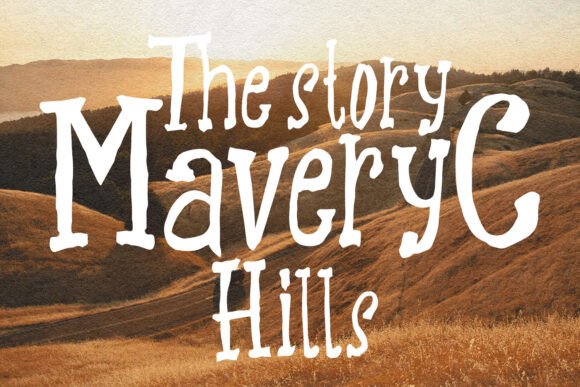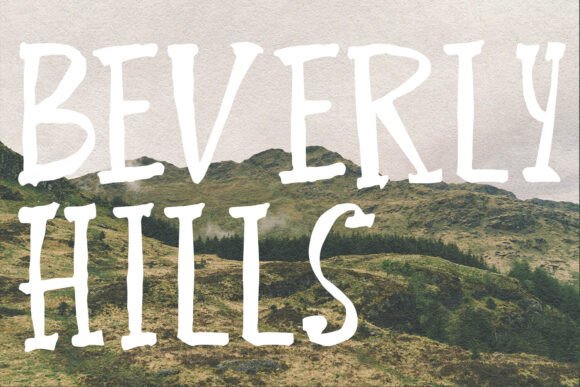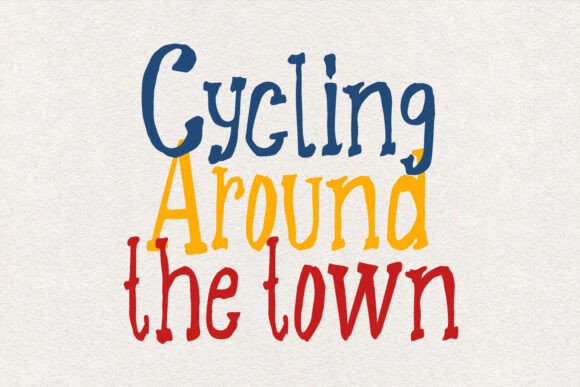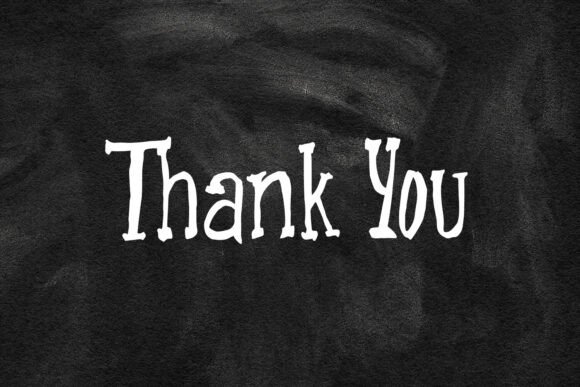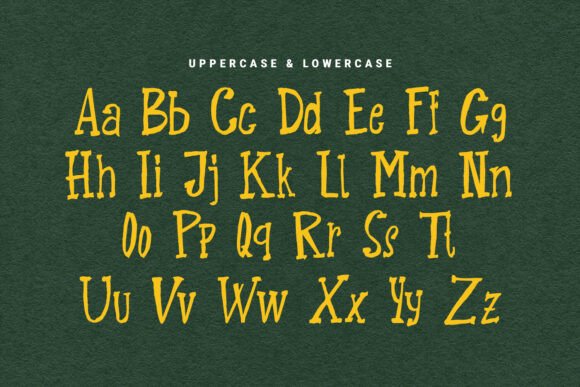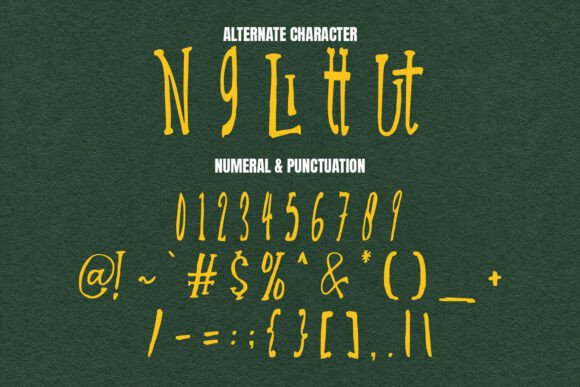
Introducing Helingest Crokleyn Font: A Handmade Brush Typewriter Display Font
Are you tired of using the same old fonts in your designs? Look no further! Helingest Crokleyn Font is a unique, handmade brush typewriter display font that is sure to add a touch of personality to your creative work. With its fun and playful character, alternates, and ligatures, this font is perfect for designers and crafters looking to add some extra flair to their projects.
What Makes Helingest Crokleyn Font Special?
Helingest Crokleyn Font is a one-of-a-kind font that is handcrafted with love and care. Its handmade brush typewriter design gives it a distinctive look that is reminiscent of traditional typewriters, but with a modern twist. The font comes with a range of fun characters, alternates, and ligatures that allow you to add extra creativity to your work.
Key Features of Helingest Crokleyn Font
- Handmade Brush Typewriter Design: Helingest Crokleyn Font features a unique handmade brush typewriter design that gives it a distinctive look.
- Fun Characters: The font comes with a range of fun characters that are perfect for adding a touch of personality to your designs.
- Alternates and Ligatures: Helingest Crokleyn Font includes alternates and ligatures that allow you to add extra creativity to your work.
- Multilingual Support: The font supports multilingual language, making it perfect for designers and crafters who work with clients from around the world.
Helingest Crokleyn Font is perfect for designers and crafters who are looking to add a touch of personality to their work. Whether you’re working on a branding project, a craft project, or a digital design, this font is sure to help you stand out from the crowd.
Use Cases for Helingest Crokleyn Font
Here are just a few examples of how you can use Helingest Crokleyn Font in your designs:
- Branding and Logo Design: Use Helingest Crokleyn Font to create a unique and memorable brand identity.
- Crafting and Scrapbooking: Add a touch of personality to your crafting and scrapbooking projects with this fun and playful font.
- Digital Design: Use Helingest Crokleyn Font in your digital designs, such as social media graphics, blog posts, and website headers.
Why Choose Helingest Crokleyn Font?
There are many fonts available that claim to be unique and creative, but Helingest Crokleyn Font stands out from the crowd. Here are just a few reasons why you should choose this font for your next project:
- Unique Design: Helingest Crokleyn Font features a unique handmade brush typewriter design that is sure to turn heads.
- High-Quality: The font is crafted with high-quality materials and attention to detail, ensuring that it looks great in any design.
- Multilingual Support: The font supports multilingual language, making it perfect for designers and crafters who work with clients from around the world.
Helingest Crokleyn Font is a unique and creative font that is perfect for designers and crafters looking to add a touch of personality to their work. With its handmade brush typewriter design, fun characters, alternates, and ligatures, this font is sure to help you stand out from the crowd. Whether you’re working on a branding project, a craft project, or a digital design, Helingest Crokleyn Font is the perfect choice.